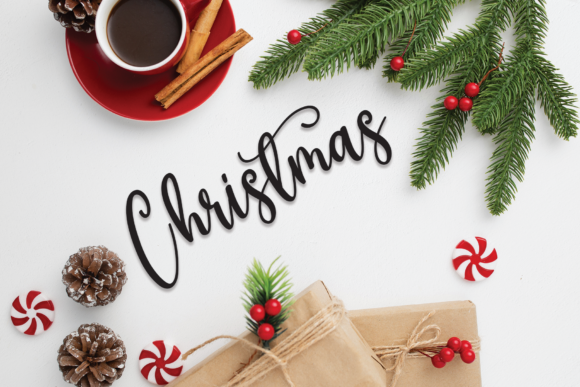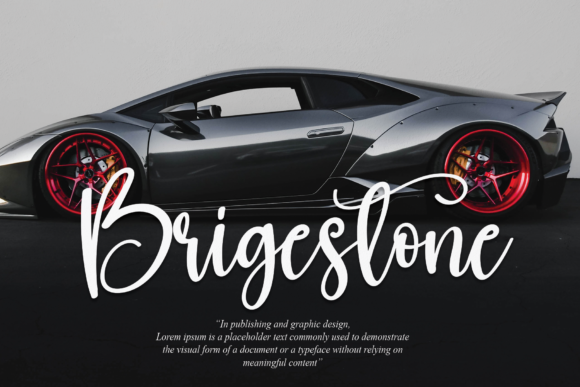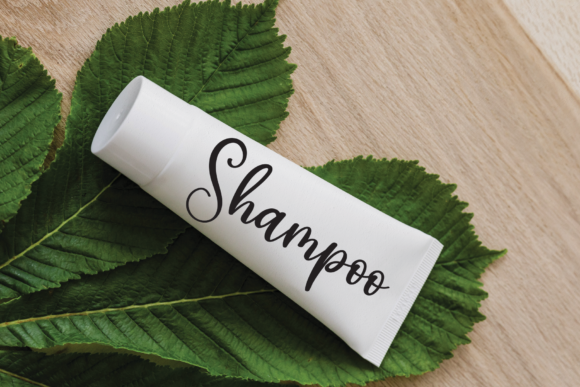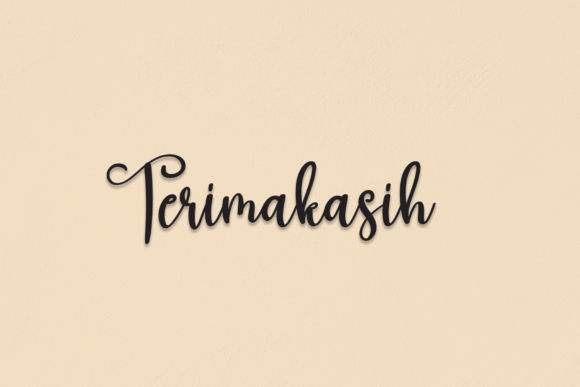
The Perfect Touch of Whimsy: Unveiling the Butterfly Font
As a designer, have you ever found yourself staring at a blank canvas, waiting for inspiration to strike? Maybe it’s the sound of a pen scratching across paper or the gentle hum of a creative brainstorming session with friends. Whatever sparks your imagination, we’re here to share a secret that can elevate your designs to new heights: the enchanting Butterfly Font.
This elegant, cursive handwritten font is more than just a pretty face – it’s a versatile tool designed to add a touch of whimsy to your projects. Whether you’re crafting wedding invitations, social media post logos, or product packaging, the Butterfly Font is the perfect companion to bring your vision to life. As a designer, you’ll appreciate its value in adding a unique, handwritten touch to your creations.
Butterfly Font Key Features
- Unique Characteristics: Butterfly Font features a unique blend of elegance and whimsy, with delicate curves and intricate details that set it apart from other fonts.
Designer Review: Butterfly Font
First impressions are everything, and the Butterfly Font ✨ caught my eye with its delicate, hand-drawn aesthetic. The intricate details and subtle variations in letterform make it perfect for adding a touch of whimsy to your designs.
- The font’s organic feel makes it great for branding and packaging designs.
- The subtle variations in letterform add a sense of personality to your text.
- The font is highly legible, even at smaller sizes.
- The font may be too delicate for headings or titles, where boldness and clarity are essential.
- The subtle variations in letterform can make it difficult to achieve consistent spacing and alignment.
- The font may not be suitable for large blocks of text, where readability is key.
- ⚠️ There is no bold or italic version of the font, which can limit its versatility.
Overall, the Butterfly Font is a beautiful and unique addition to any designer’s toolkit. While it may have some limitations, its charm and character make it perfect for adding a touch of elegance to your designs.
Practical Application Guide for Butterfly Font
Getting the Most Out of the Butterfly Font
Use the Butterfly Font to add a touch of elegance and whimsy to your designs. Experiment with different font sizes, colors, and styles to create unique and eye-catching effects.
The Butterfly Font is ideal for:
Birthday and anniversary cards
Marketing materials and social media graphics
Any design project that requires a touch of whimsy and elegance
Alternatives to Butterfly Font
Great Vibes is a modern, elegant script font. It’s perfect for designers who want to add a touch of sophistication and whimsy to their projects. Great Vibes has a more refined and polished look compared to Butterfly Font, making it suitable for high-end branding and advertising.
Comparison to Butterfly Font: While both fonts have a playful feel, Great Vibes is more refined and has a wider range of weights, making it more versatile.
Crimson Text is a serif font with a touch of elegance and sophistication. It’s ideal for designers who want to create a sense of warmth and approachability in their projects. Crimson Text has a more classic look compared to Butterfly Font, making it suitable for corporate branding and editorial design.